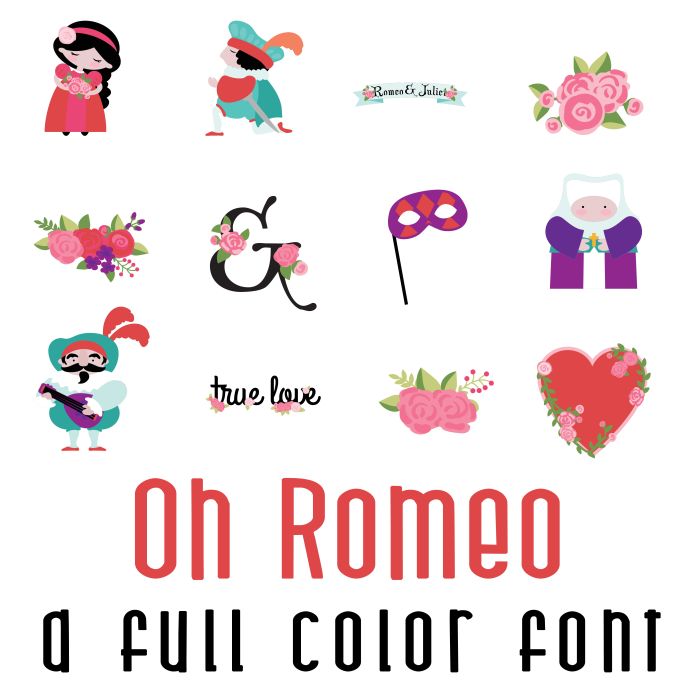
This fun full color font features 31 Romeo and Juliet and romance imagery. Perfect for classrooms, teachers, gifts, decor, scrap book pages, planner stickers and more! Dingbats are A-Z and 0-4..